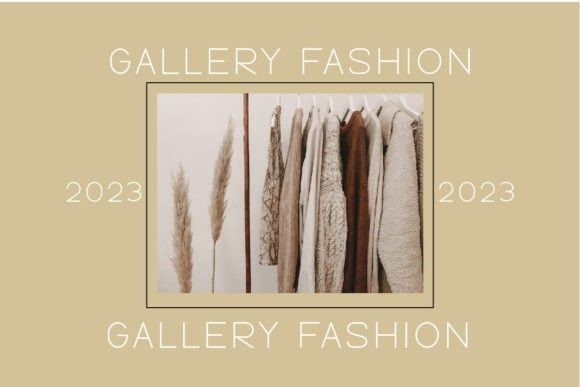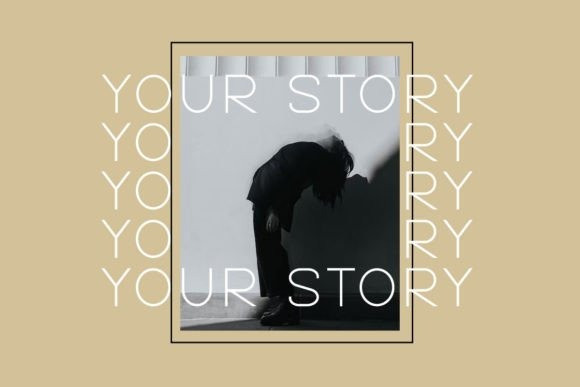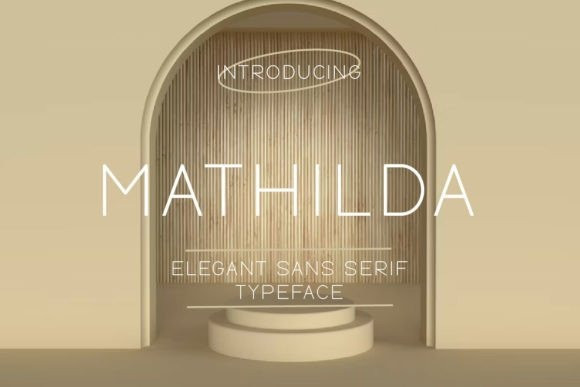
Mathilda Sans Font
Mathilda Sans Font –   Elegant Sans Serif Typeface inspired by the famous minimalist logo perfect for your needs in designing templates, brochures, videos, advertising branding, logos, invitations, layout designs, elegant crafts, beauty designs and more